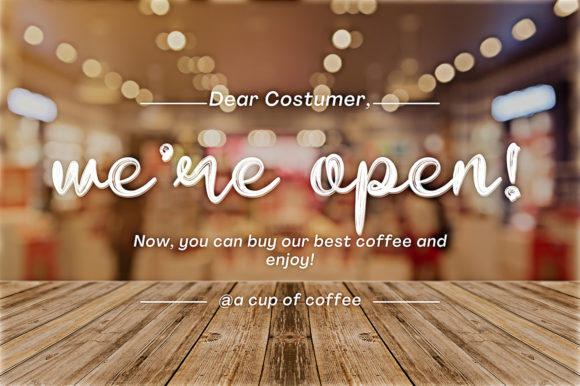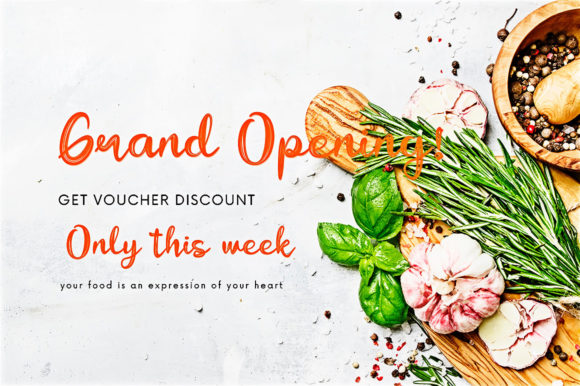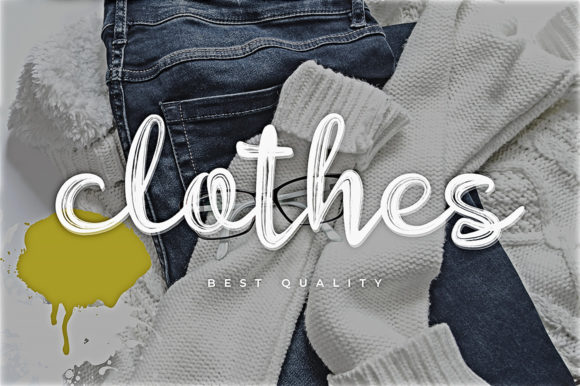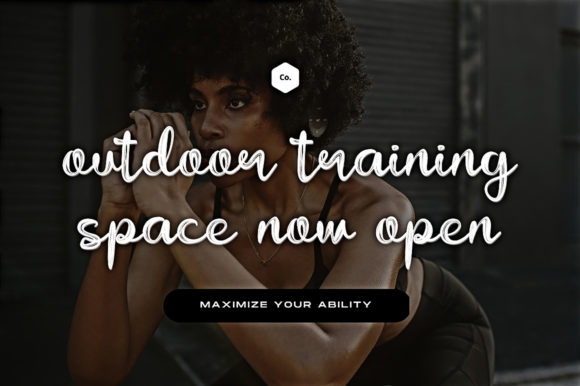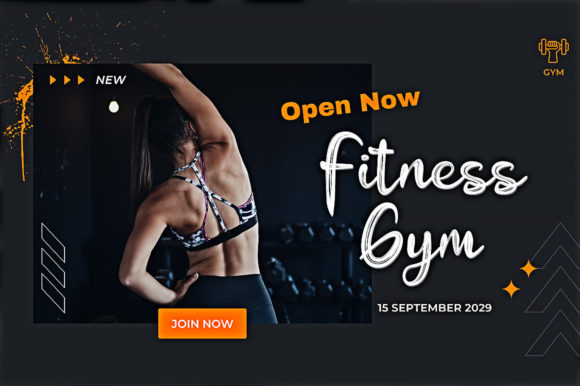
Ginnifer Font: Elevate Your Designs with a Brushed and Fashionable Script
In the world of typography, fonts play a crucial role in conveying the tone and personality of a brand. For designers and crafters looking to add a touch of elegance and sophistication to their projects, the Ginnifer Font is an excellent choice. This brushed and fashionable script font is perfect for a variety of applications, from logos and t-shirt printing to creative products and more.
The Unique Characteristics of Ginnifer Font
Ginnifer Font stands out from other script fonts due to its distinctive brushed texture and fashionable style. The font’s unique characteristics make it an excellent choice for designers who want to add a personal touch to their work. The brushed effect gives the font a hand-crafted feel, making it perfect for projects that require a more organic and human touch.
Perfect for Branding Projects
When it comes to branding, a font can make or break the identity of a company. Ginnifer Font is designed to help businesses create a lasting impression on their customers. The font’s elegant and sophisticated style makes it perfect for logos, business cards, and other marketing materials. Its versatility ensures that it can be used in a variety of contexts, from digital platforms to print materials.
Ginnifer Font is not just limited to branding projects. Its creative possibilities are endless, making it an excellent choice for crafters and designers who want to add a personal touch to their work. Some of the many ways you can use Ginnifer Font include:
- T-shirt printing: Create unique and stylish t-shirts with Ginnifer Font. The font’s brushed texture and fashionable style make it perfect for designing eye-catching apparel.
- Creative products: From mugs to phone cases, Ginnifer Font can be used to create a wide range of creative products that make great gifts or personal items.
- Stationery: Add a touch of elegance to your stationery with Ginnifer Font. The font is perfect for designing beautiful journals, notebooks, and greeting cards.
Why Choose Ginnifer Font?
With so many fonts available, why choose Ginnifer Font? Here are just a few reasons why designers and crafters love this font:
- Unique style: Ginnifer Font has a distinctive style that sets it apart from other script fonts. Its brushed texture and fashionable style make it perfect for designers who want to add a personal touch to their work.
- Versatility: Ginnifer Font can be used in a variety of contexts, from digital platforms to print materials. Its versatility makes it an excellent choice for designers who work on a wide range of projects.
Tips for Using Ginnifer Font
To get the most out of Ginnifer Font, here are a few tips to keep in mind:
- Experiment with different sizes: Ginnifer Font looks great in a variety of sizes. Experiment with different sizes to find the one that works best for your project.
- Pair it with other fonts: Ginnifer Font can be paired with other fonts to create a unique and stylish look. Experiment with different font combinations to find the one that works best for your project.
- Use it sparingly: While Ginnifer Font is beautiful, it can be overwhelming if used too much. Use it sparingly to create a stylish and elegant look.
| Author | Ahmad Pkp Studio |
Ginnifer Font is a brushed and fashionable script font that is perfect for designers and crafters looking to add a touch of elegance and sophistication to their projects. Its unique characteristics, versatility, and ease of use make it an excellent choice for a wide range of applications. Whether you’re working on a branding project, t-shirt printing, or creative products, Ginnifer Font is sure to elevate your designs and help you create something truly special.